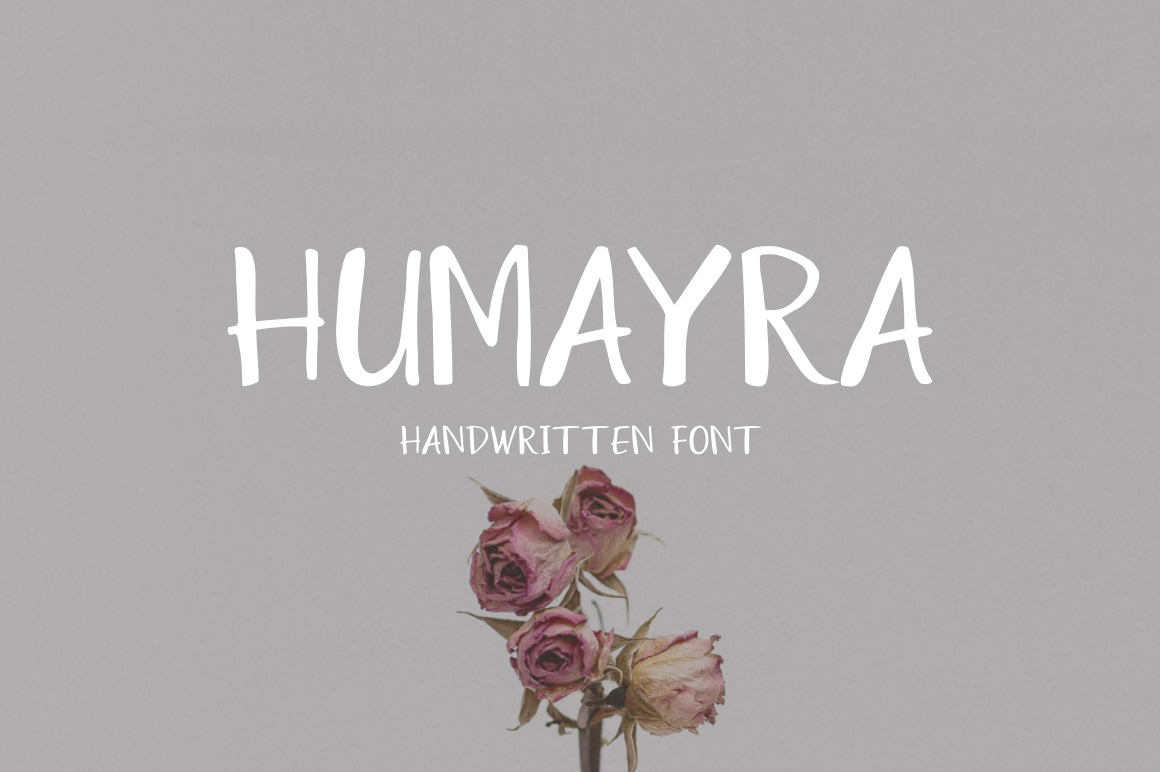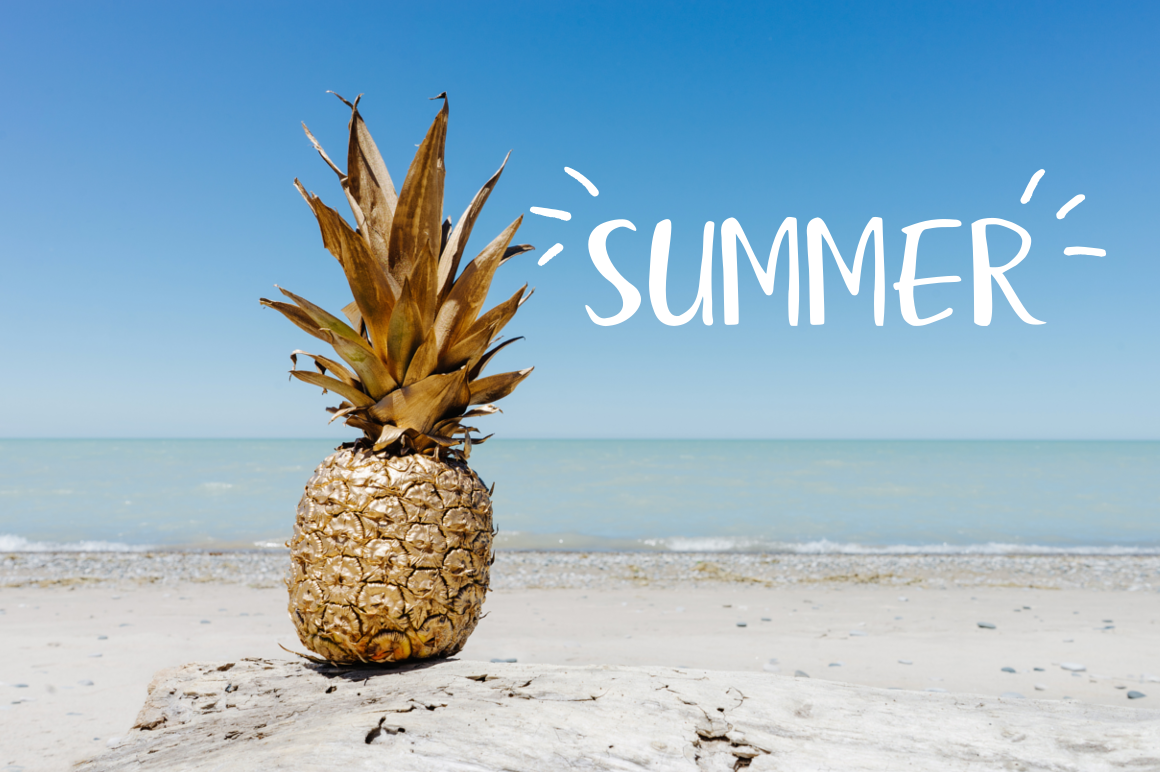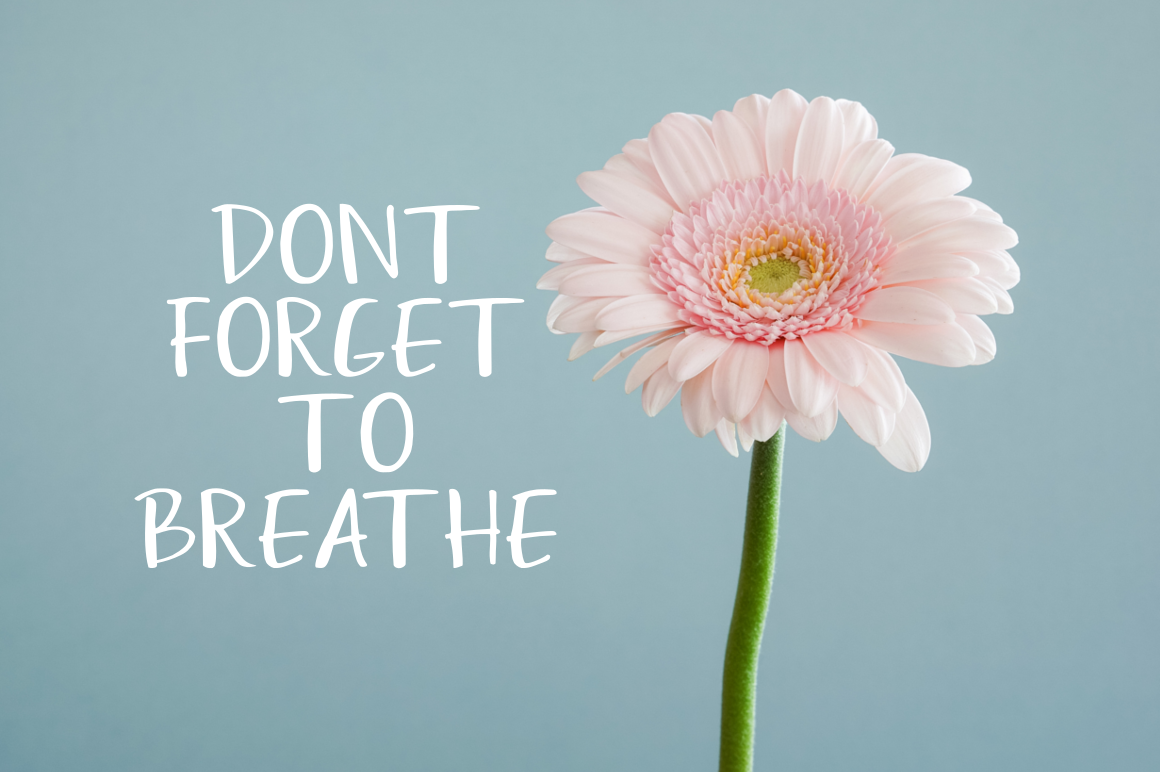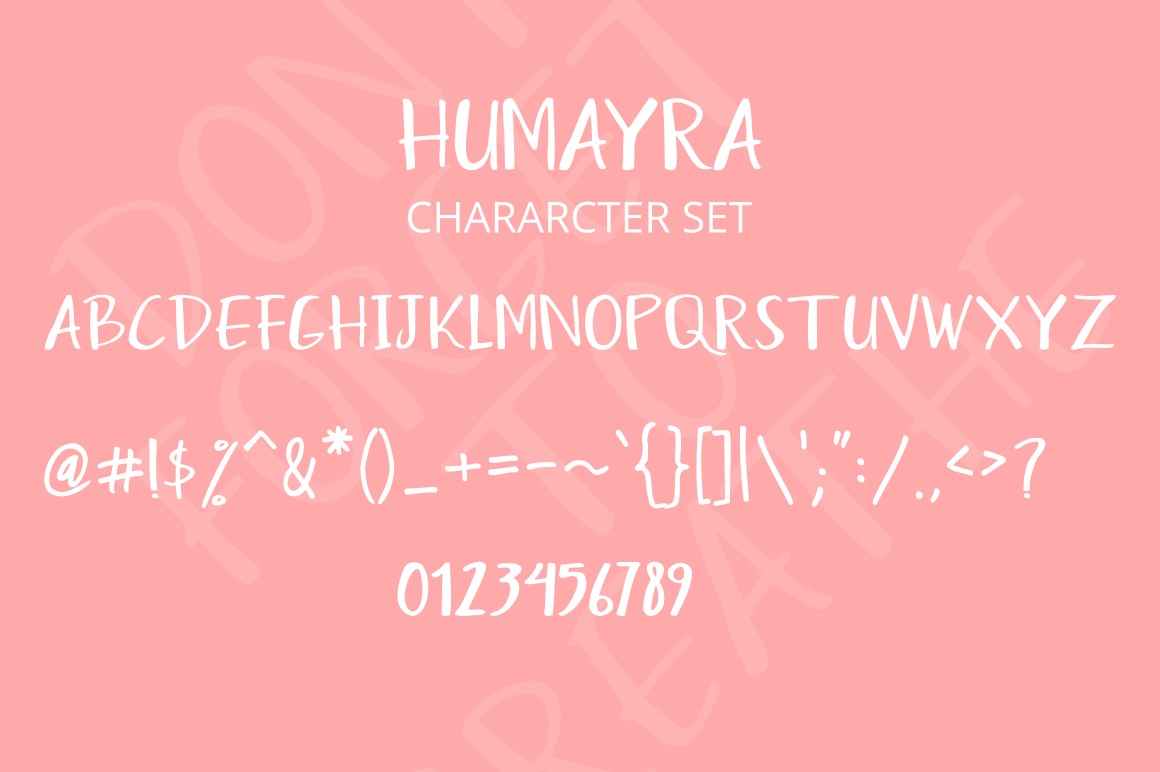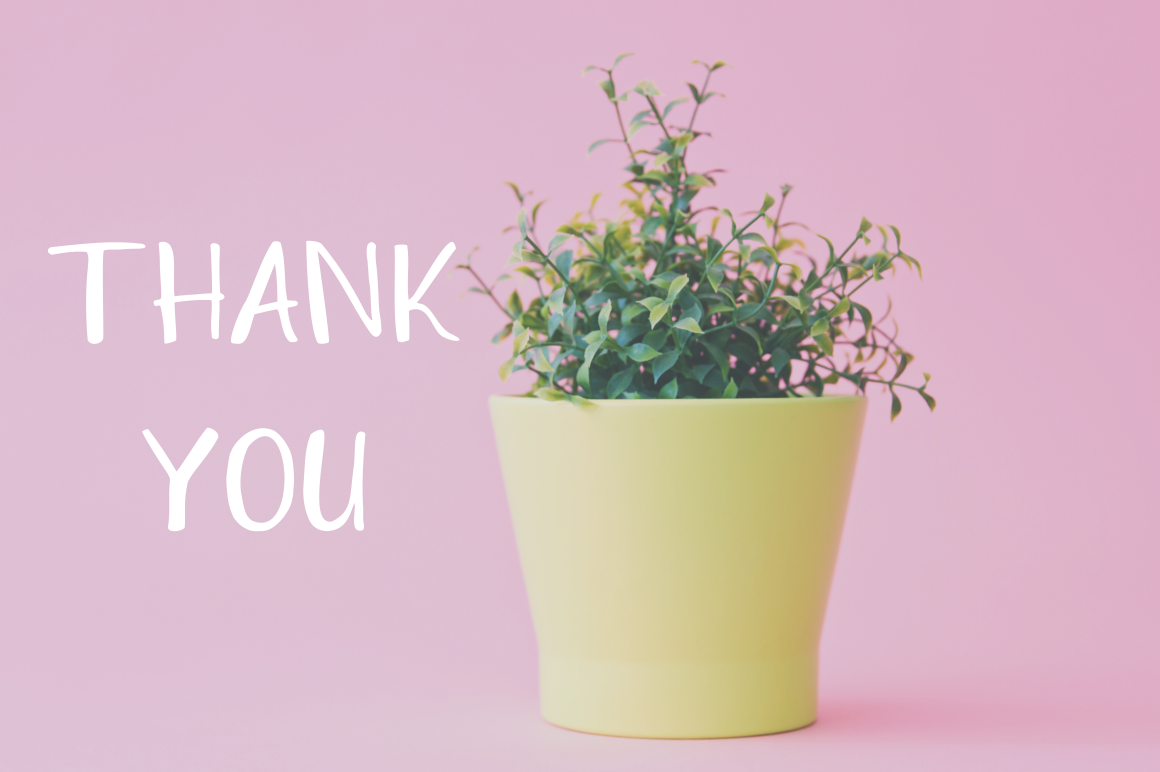
Humayra Font
About Humayra Font
Humayra is beautiful handmade font. This all caps sans serif is ideal for relaxed designs that need a legible and engaging appeal. Humayra is perfectly suited to displays and headlines.